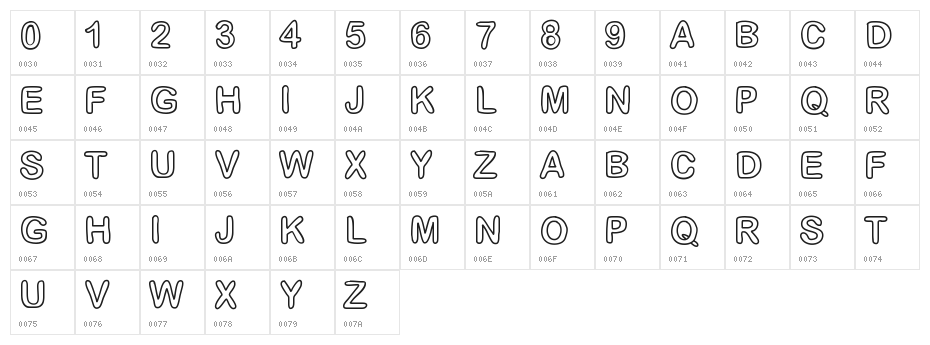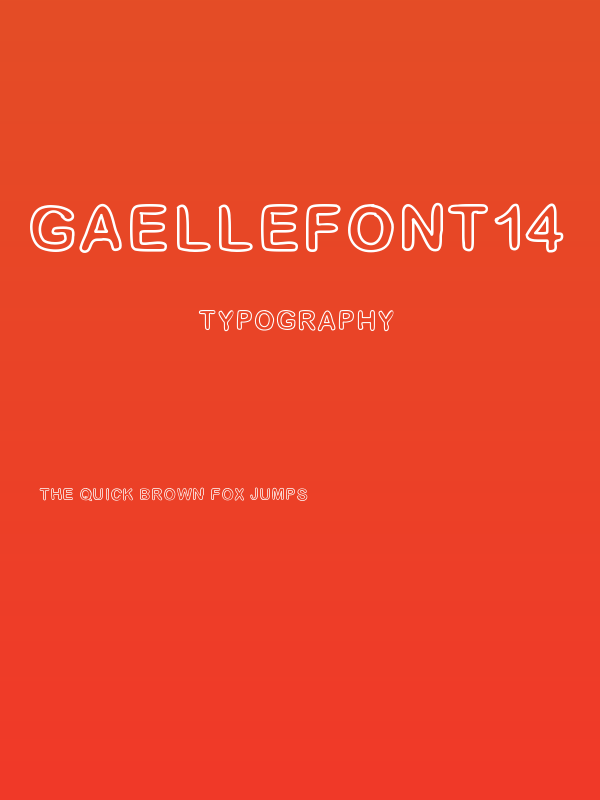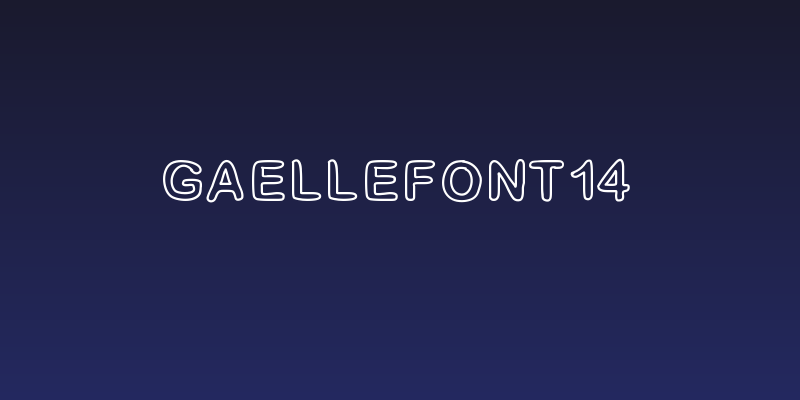
GaelleFont14 Font
GaelleFont14 Description
This font features a clean and modern outline style, characterized by its bold and rounded letterforms. Each character is defined by a consistent stroke width, creating a uniform and cohesive appearance. The uppercase and lowercase letters maintain a balanced proportion, while the numerals are easily distinguishable with their clear and open design. Special characters are included, enhancing the font's versatility. The overall aesthetic is both playful and professional, making it suitable for a variety of design applications.